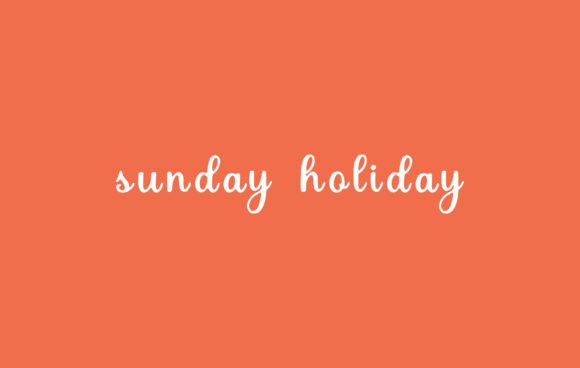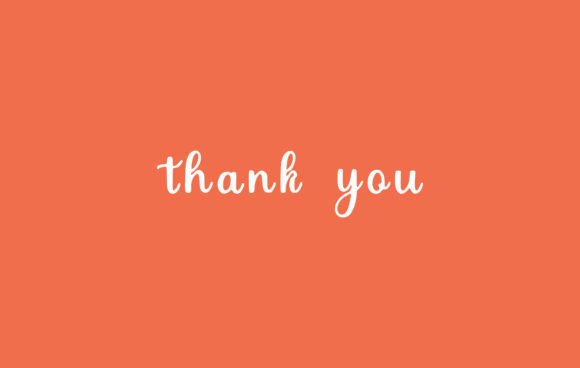
Introduction to Sebastian Font
As a designer, have you ever been in the middle of a creative project, pouring your heart and soul into a piece, only to feel like something is missing? A little extra oomph to take it to the next level? That’s where the Sebastian Font comes in – a stunning, authentic handwritten font that’s sure to elevate your designs and leave a lasting impression.
With its romantic touch and high-quality design, the Sebastian Font is a must-have in any designer’s toolkit. Perfect for magazine headlines, social media, branding, wedding invitations, and more, this versatile font is sure to become your go-to for any creative project that needs a touch of sophistication and elegance.
Whether you’re looking for a unique way to express yourself or simply want to add some visual interest to your designs, the Sebastian Font is a valuable resource that’s free to download and use. Its transparent background and legible design make it perfect for use as both title and body text, ensuring your message shines through with clarity and style.
Key Features of Sebastian Font
- High-quality typography with a unique, modern design
- Transparent background, ideal for creative projects and designs
- Includes a wide range of characters, including uppercase and lowercase letters, numbers, and punctuation
- Designed with a high-resolution display in mind, suitable for printing and digital use
- Perfect for use in various creative projects, such as logos, typography-based art, and more
Honest Review: Sebastian Font
As a designer, I’m always on the lookout for high-quality fonts that can elevate my creative projects. Recently, I stumbled upon Sebastian Font, and I’m excited to share my thoughts on this design resource.
- High-quality design: Sebastian Font boasts a clean and elegant design that’s perfect for creative projects.
- Transparent background: The font’s transparent background makes it easy to use on any design element, without worrying about background conflicts.
- Limited character set: Sebastian Font’s character set is relatively limited, which may not be ideal for designers who need a wide range of characters.
- Not ideal for small text: The font’s design may not be suitable for small text sizes, as it can become difficult to read.
Overall, I’m impressed with Sebastian Font’s design and functionality. While it may have some limitations, it’s a great resource for designers looking for a high-quality, free font. I’d definitely recommend it for creative projects where a clean and elegant design is needed.
Sebastian Font
The Sebastian Font is a high-quality design resource ideal for creative projects that require a touch of elegance and sophistication.
The Sebastian Font is ideal for a variety of creative projects, including wedding invitations, branding materials, and marketing collateral.
For the best results, pair the Sebastian Font with a high-quality image or background to create a visually striking design. You can also experiment with different font sizes and colors to add depth and interest to your project.